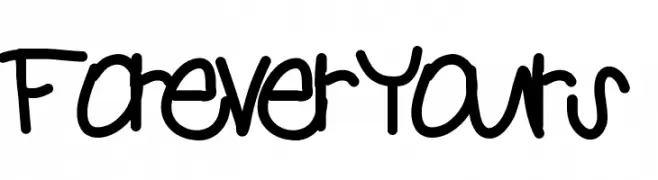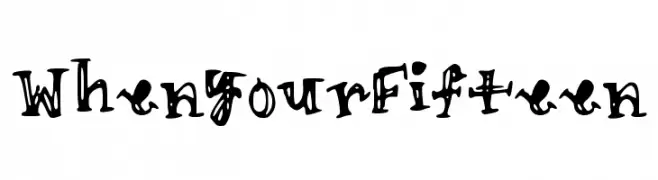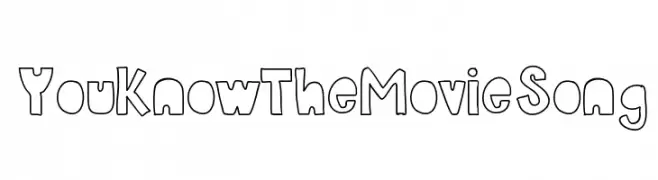
A hand-drawn, sketch-like font with a casual and informal feel.
A decorative font with a bubble-like texture and playful style.
A bold, jagged font with a graffiti-inspired style.
A bold, textured sans-serif font with an urban, distressed style.
A bold, striped font with a retro, disco-inspired aesthetic.
A bold, disco-inspired font with a dynamic, patterned design.
A bold, geometric font with a modern and industrial aesthetic.
A futuristic, segmented font with a mechanical and geometric design.
A futuristic, geometric font with cut-out sections and a modern aesthetic.
A three-dimensional, pixelated block font with a modern, digital aesthetic.
A pixelated, retro-style font with a blocky, geometric design.
A chaotic, scribbled font with thick, uneven strokes and a dynamic, artistic flair.
An elegant script font with flowing, interconnected strokes and a graceful appearance.
An elegant, high-contrast script font with a flowing, cursive style.
A playful, handwritten font with smooth, flowing lines and a casual style.
A bold, distressed stencil font with an industrial, grunge aesthetic.
A bold, hand-drawn font with an expressive and dynamic style.
A modern, geometric font with a futuristic and minimalistic style.
A bold, playful font with dynamic strokes and whimsical curves.
A playful, dotted font with a whimsical, hand-drawn style.
A playful, star-embellished font with a hand-drawn feel.
A playful, handwritten font with a youthful and energetic vibe.
A playful, casual handwritten font with lively, irregular strokes.
A playful, handwritten font with bold strokes and a casual, whimsical style.
A bold, playful handwritten font with rounded, irregular letterforms.
A playful handwritten font with a whimsical and creative style.
A playful, handwritten font with rounded edges and a casual feel.